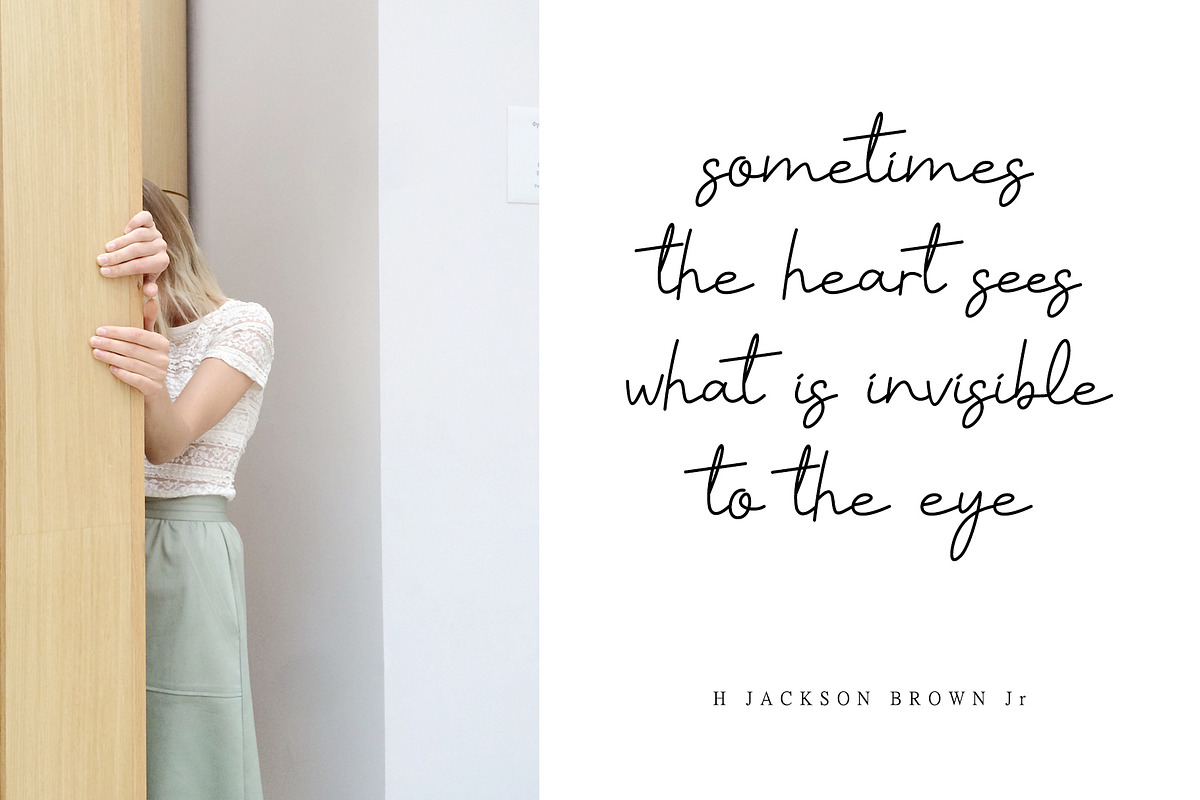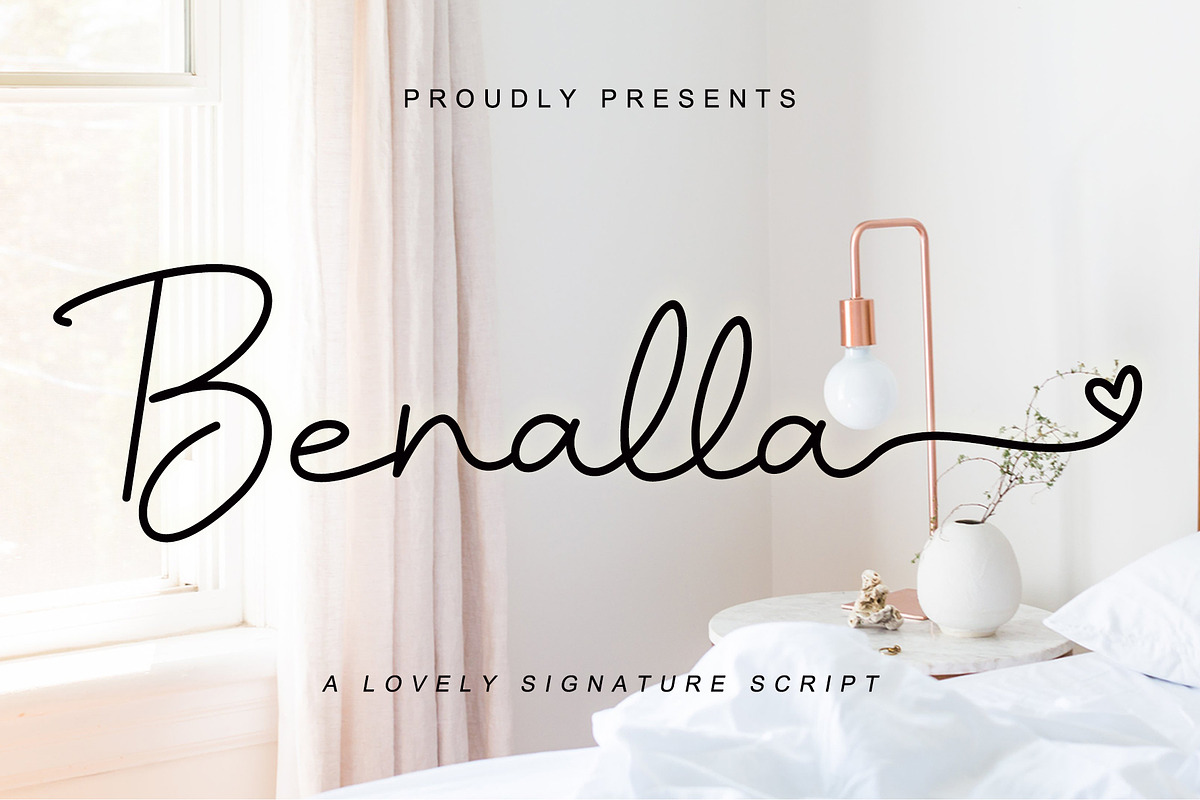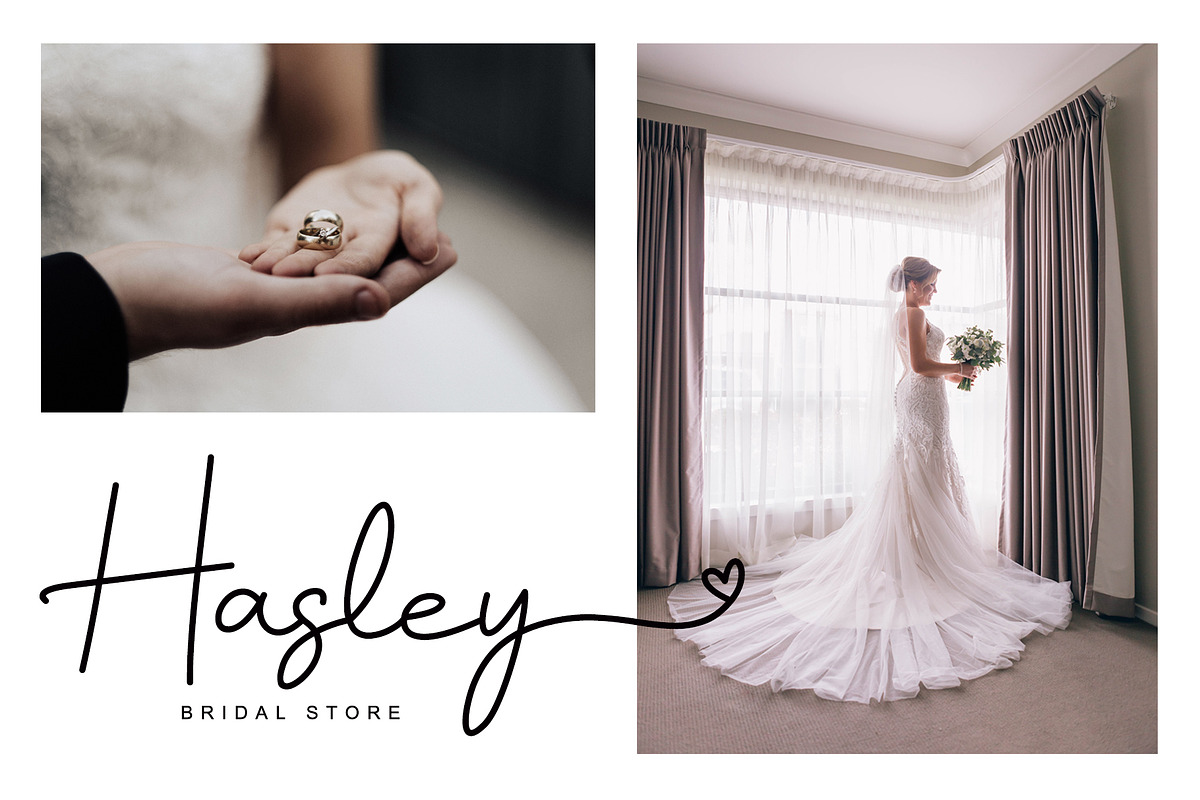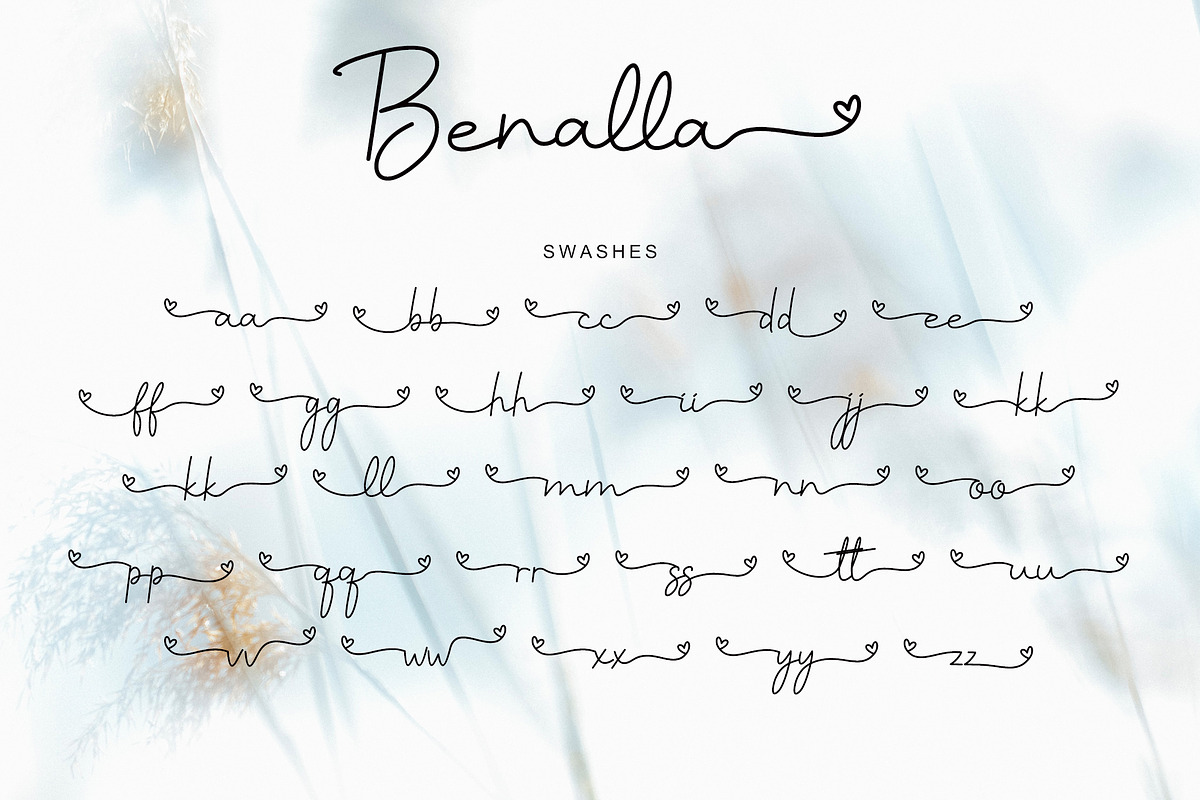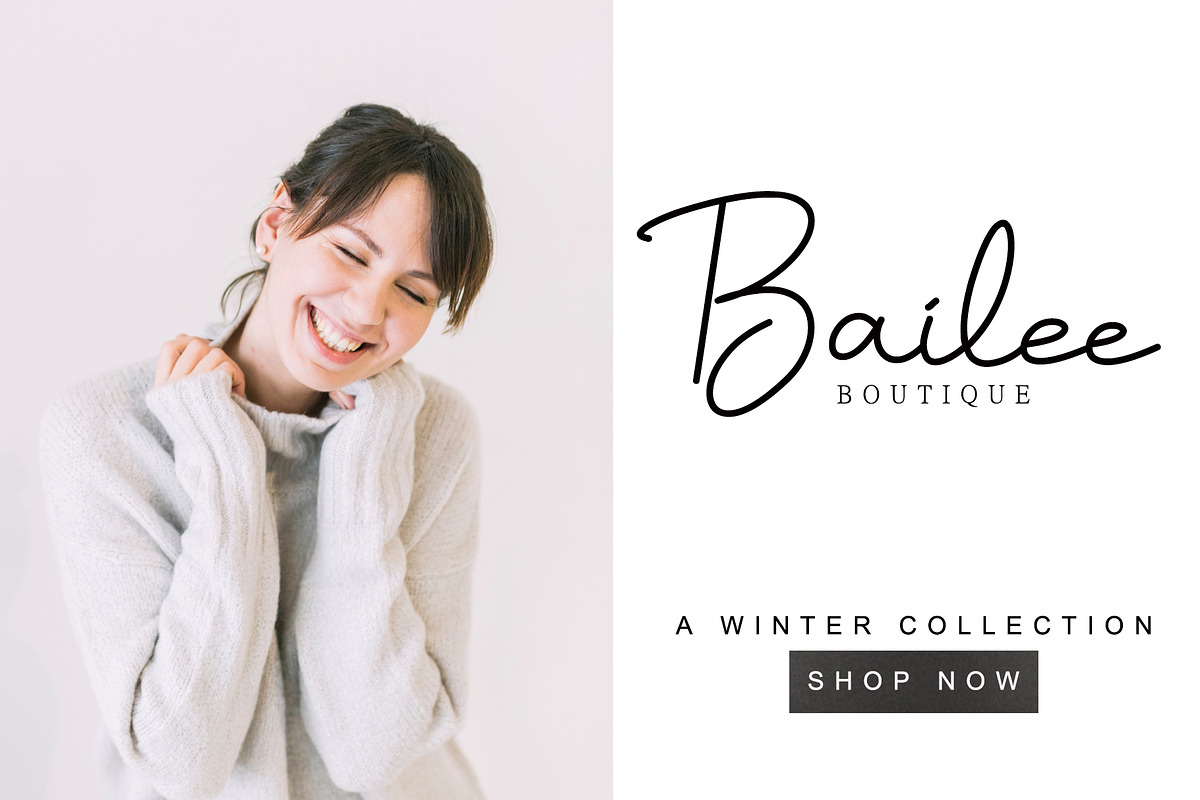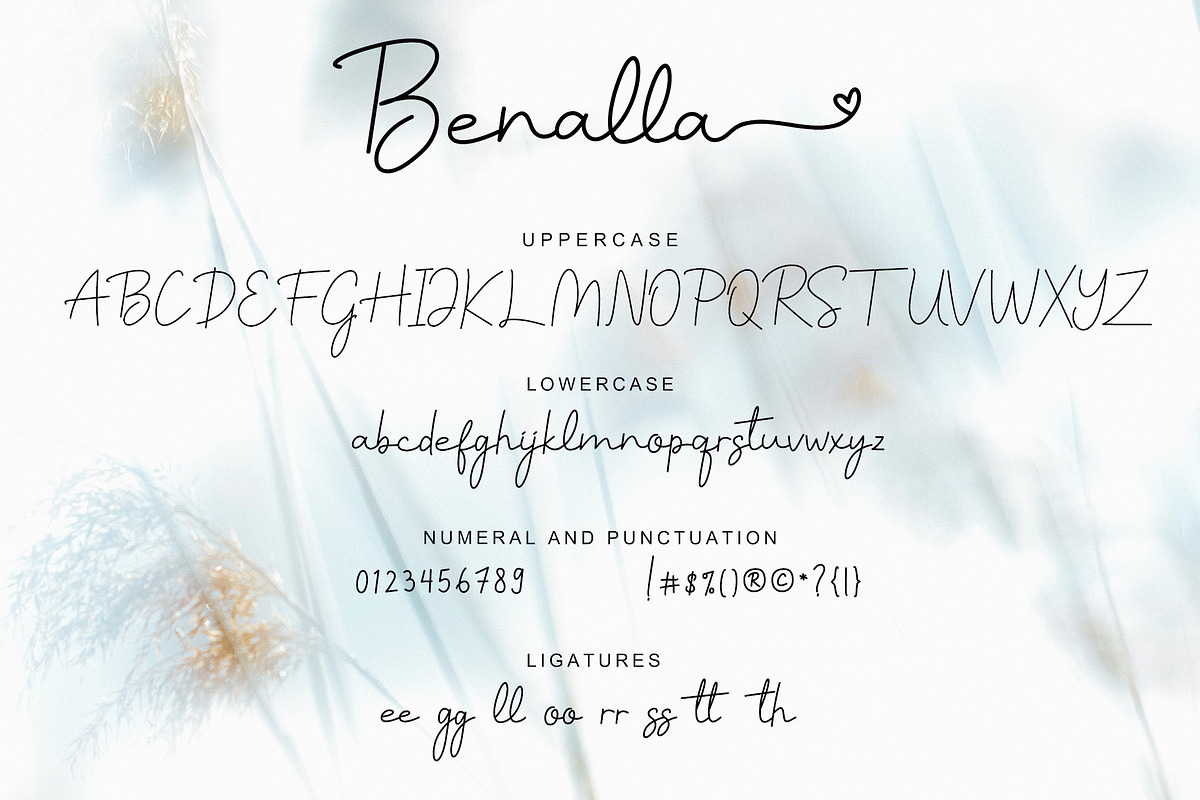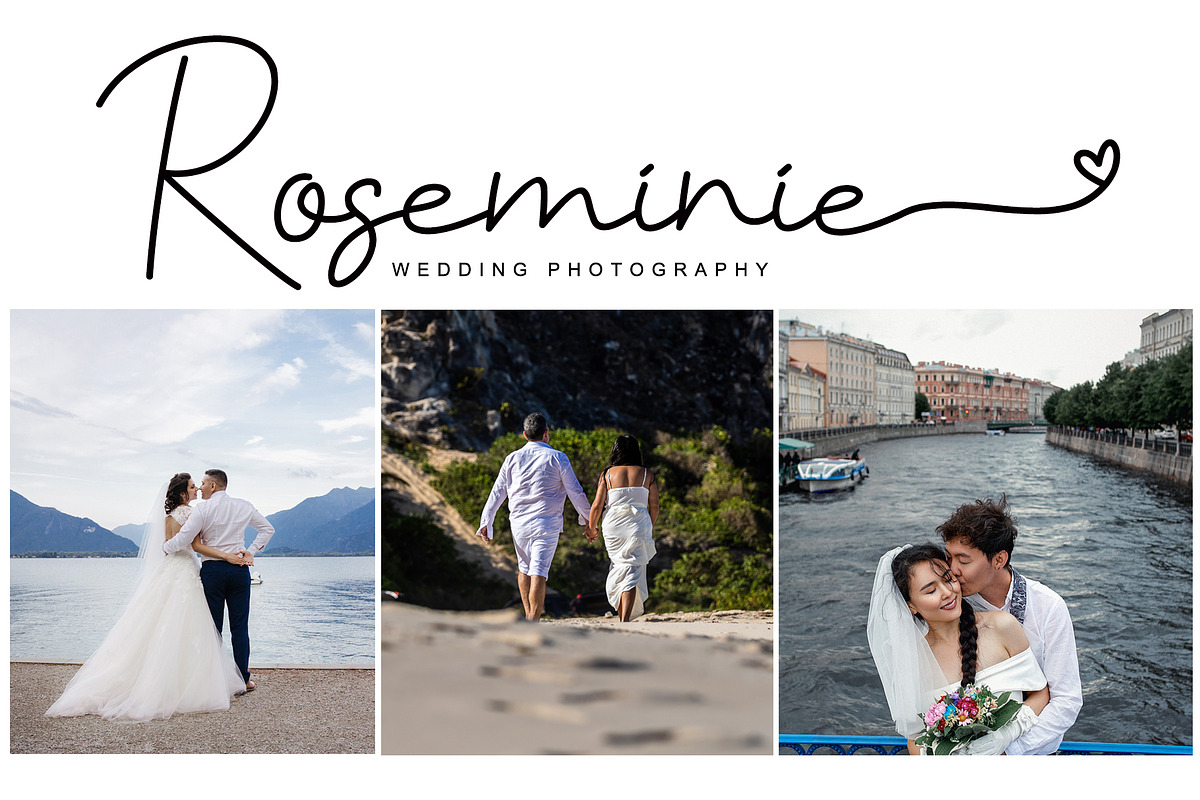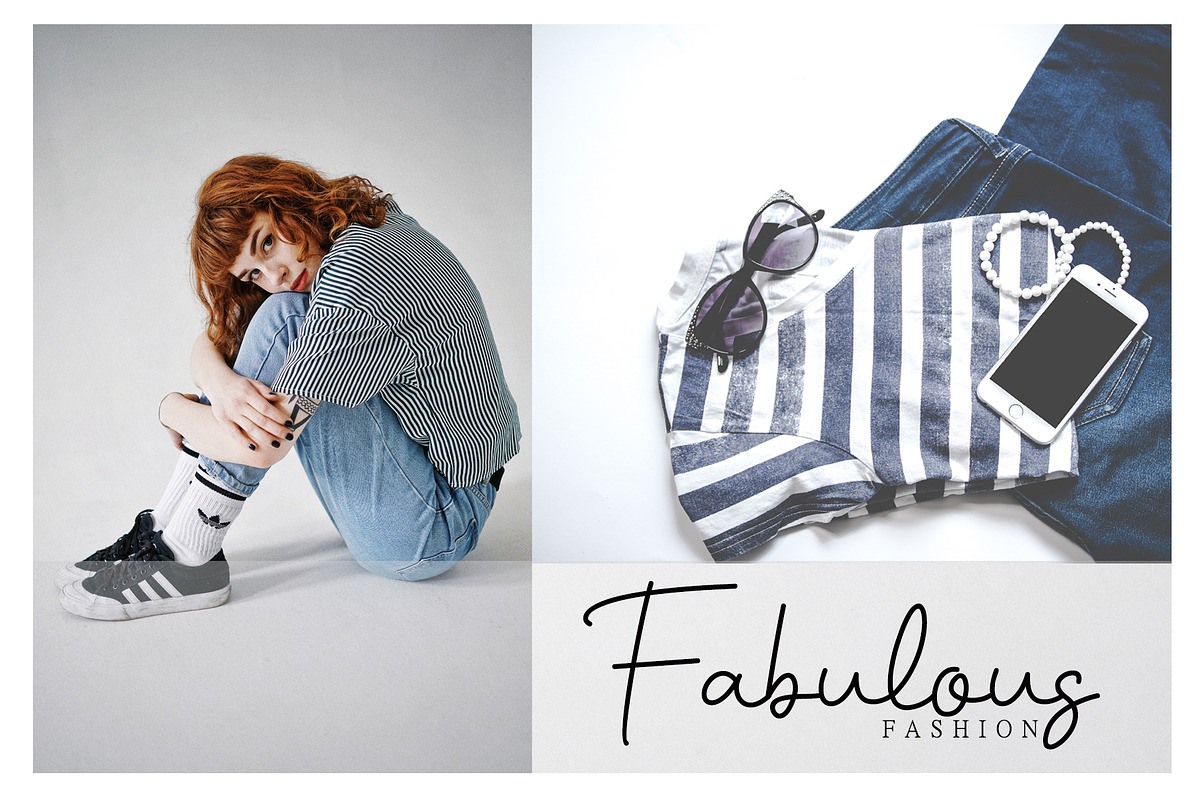
Benalla
Benalla is a beautiful, elegant, yet casual and simple font script featuring a natural look & feel. It has beautiful swashes and ligatures and it’s perfect for logos, wedding invitations, posters, social media posts, signatures, quotes, and much more!
Benalla Features :
- (a-z) swashes, (a-z) titling, ligatures
- Support multilingual; ä ö ü Ä Ö Ü ß ¿ ¡